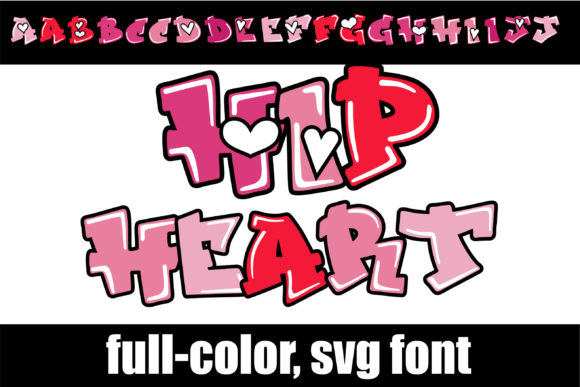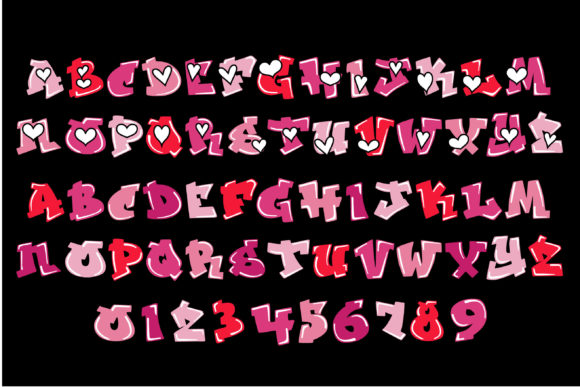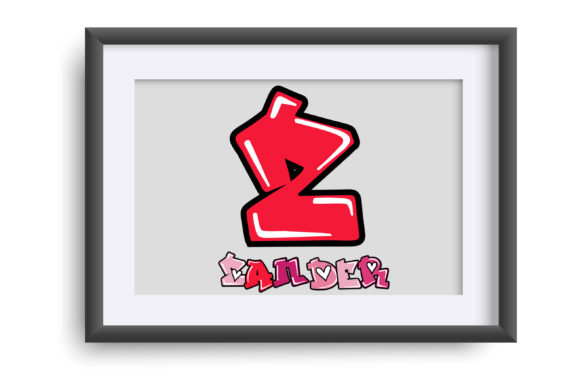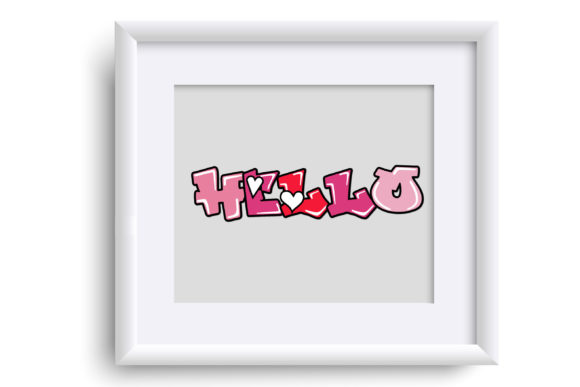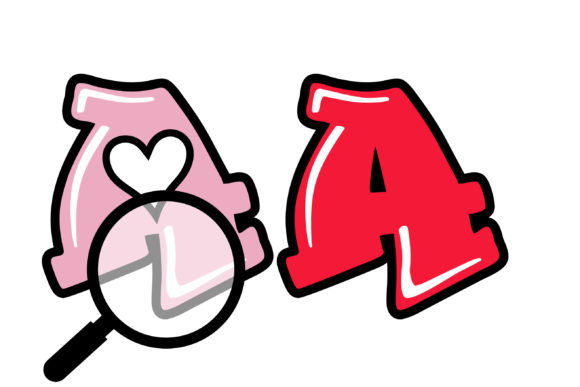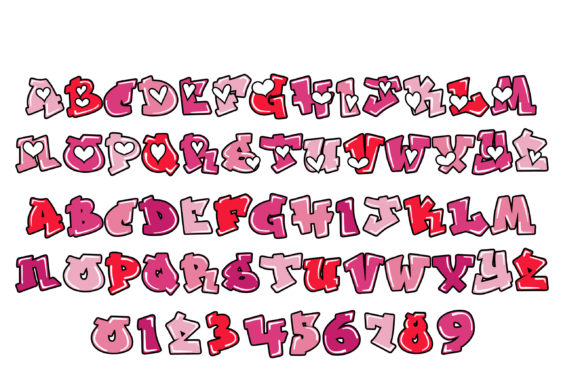
Hip Heart Font
Hip Heart is a vibrant and expressive full-color font that combines the energy of hip hop with the charm of graffiti-style lettering and hearts. With its pink and red color palette, this font adds a bold and eye-catching element to your designs.
Featuring graffiti-inspired letterforms and hearts, Hip Heart captures the urban and dynamic essence of hip hop culture. Each letter is meticulously crafted with intricate details and a vibrant color gradient that showcases the font’s unique style. The combination of pink and red hues creates a striking contrast, adding visual interest and emphasizing the font’s edgy and youthful character.
Let Hip Heart unleash your creativity and infuse your designs with the urban flair of hip hop and the warmth of heartfelt emotions. This font is perfect for projects related to music, street art, youth culture, and any design that demands a bold and energetic visual presence.
Embrace the expressive nature of Hip Heart and let it make a statement in your designs. Whether you’re creating album covers, event posters, social media graphics, or any other project that requires a touch of urban attitude, Hip Heart will capture attention and convey your message with style.
Explore the versatility of Hip Heart and let its graffiti-inspired lettering and vibrant color palette bring a fresh and dynamic vibe to your creations. Allow this full-color font to be your artistic tool in expressing the passion and energy of hip hop, combined with the universal language of love represented by the hearts.